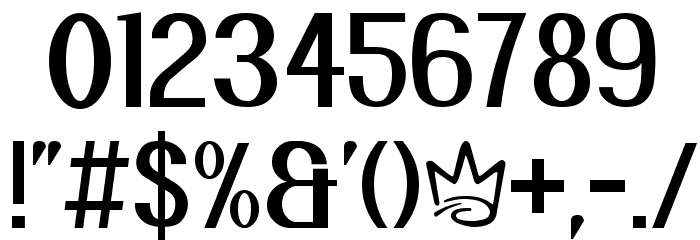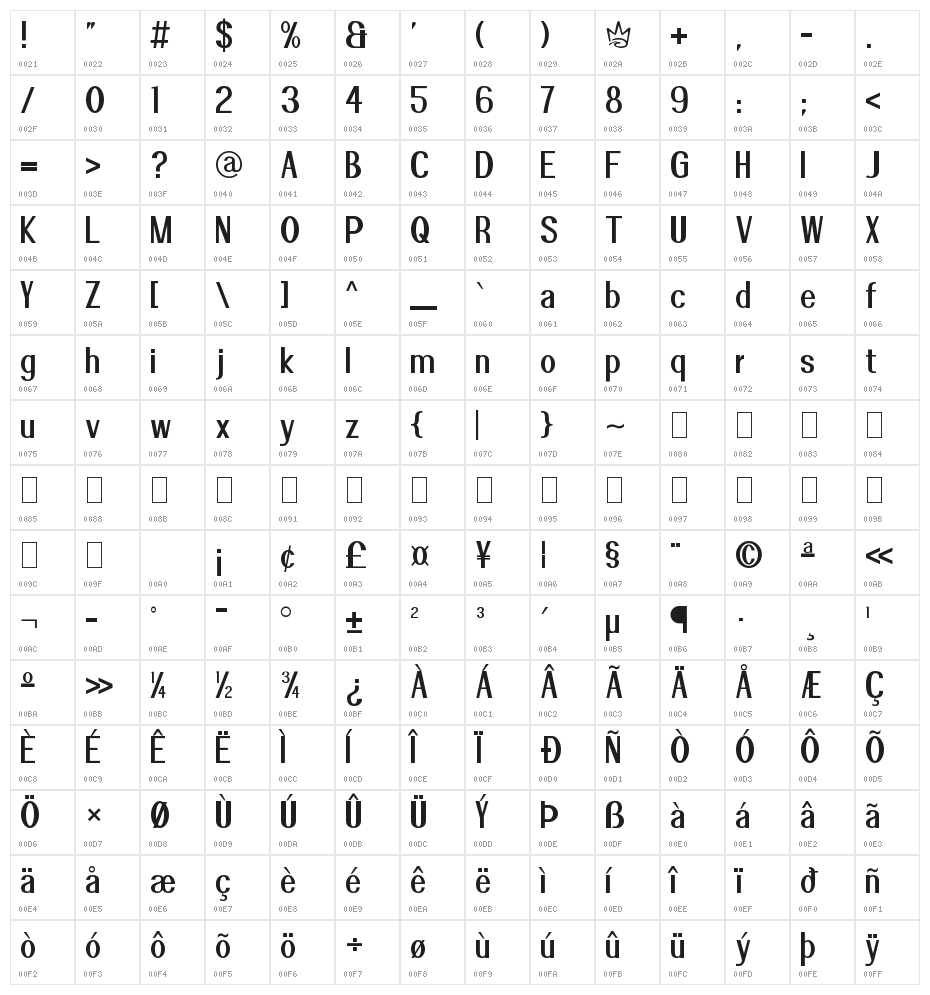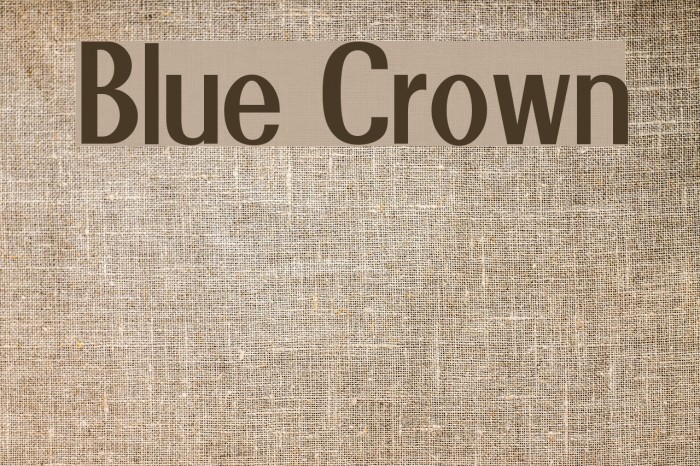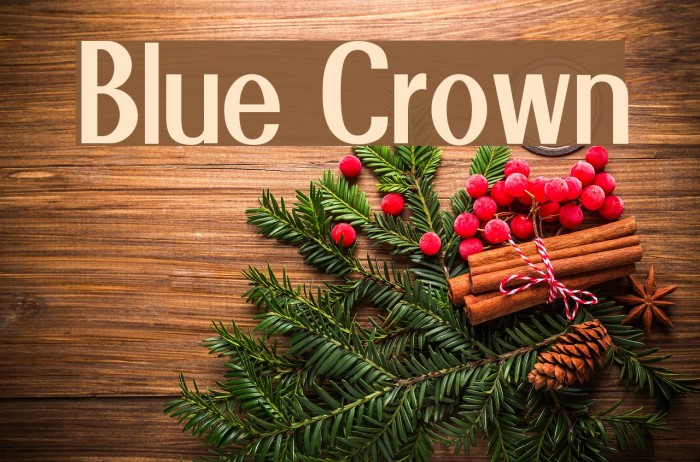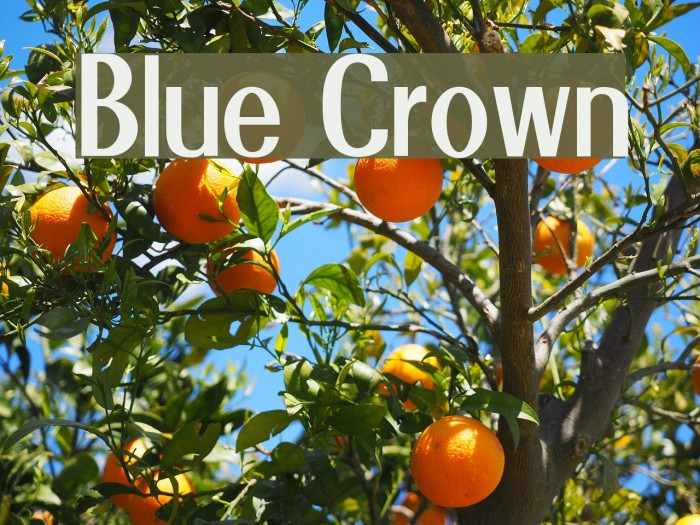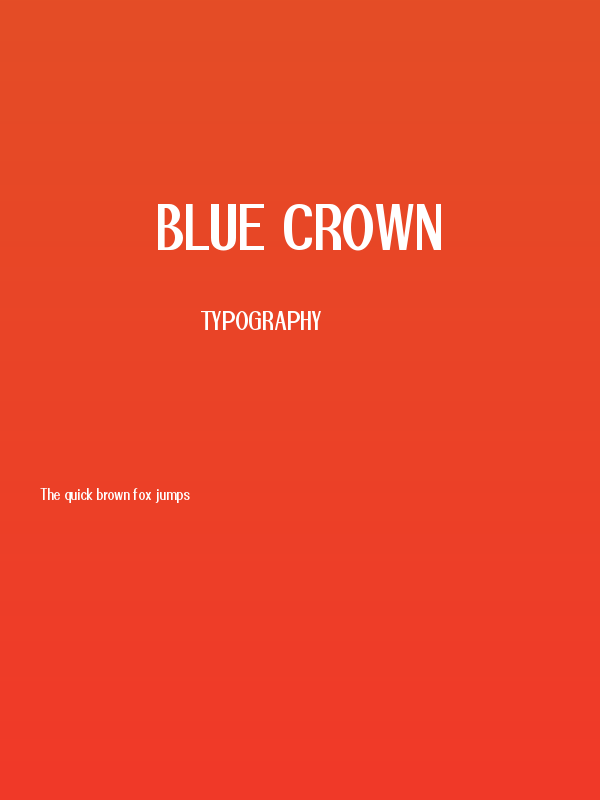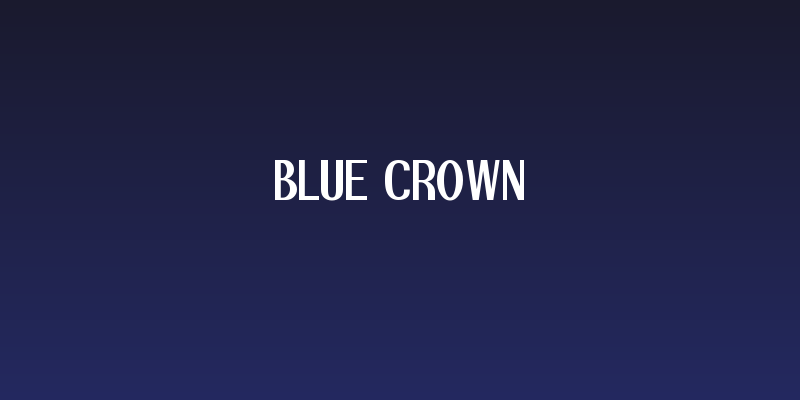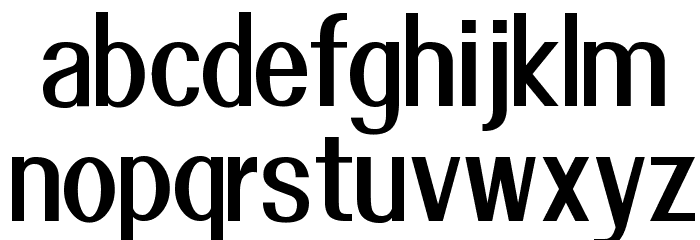
Blue Crown Font
Blue Crown Description
This font features a bold and modern sans-serif design with clean, straight lines and a uniform stroke width. The uppercase letters are tall and commanding, while the lowercase letters maintain a consistent height, offering a harmonious balance. The numerals are clear and legible, making them suitable for various applications. Special characters are distinct and well-integrated, enhancing the font's versatility. The overall appearance is sleek and professional, making it ideal for contemporary design projects.